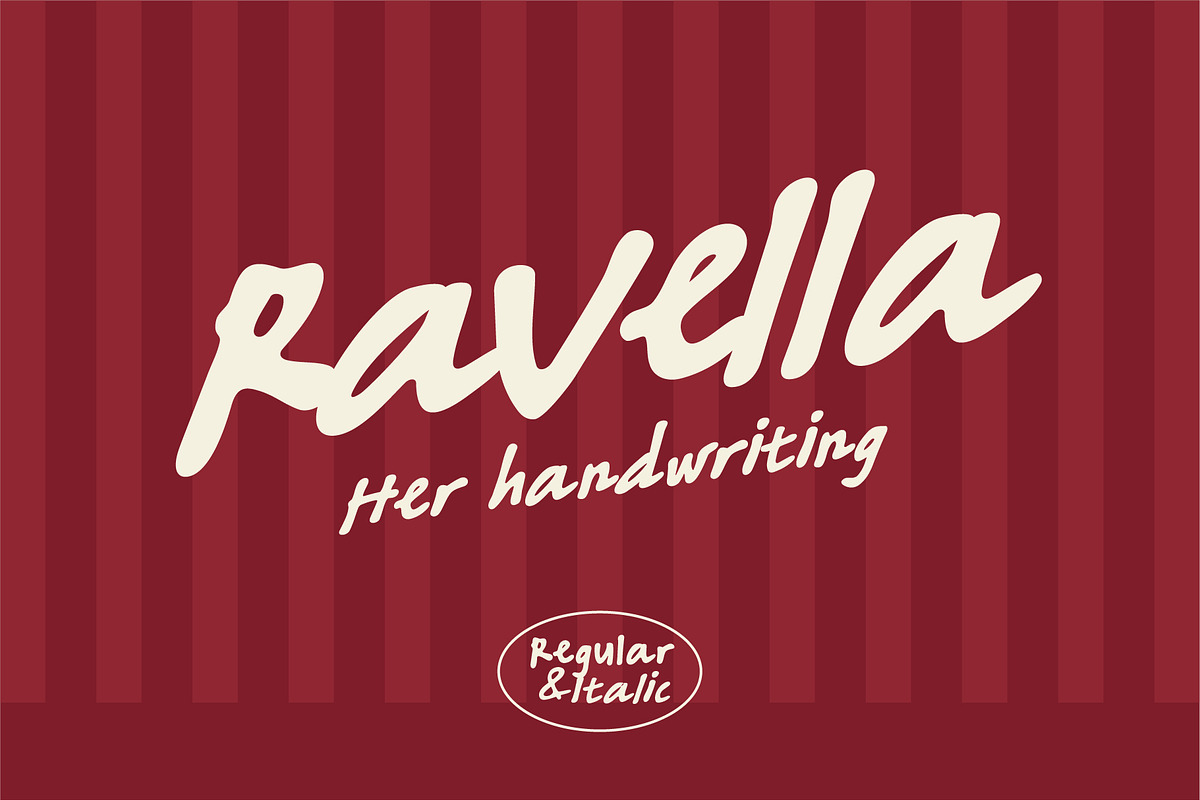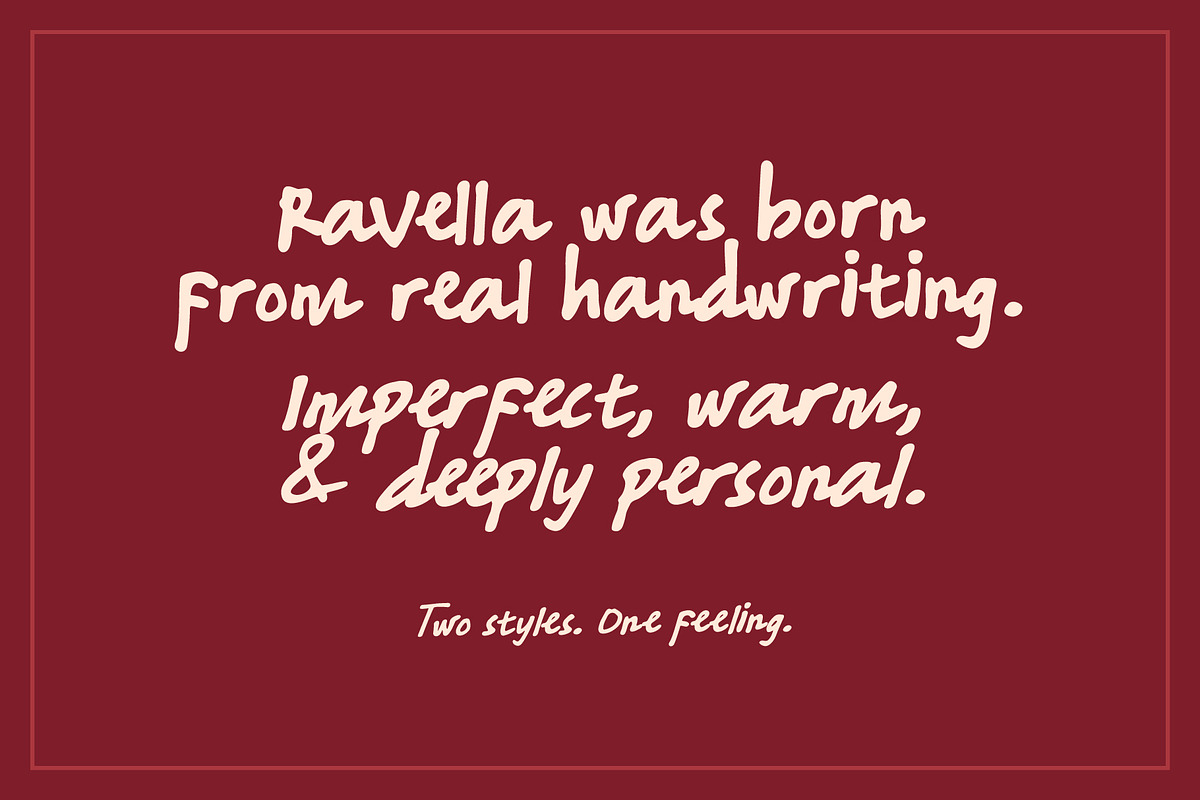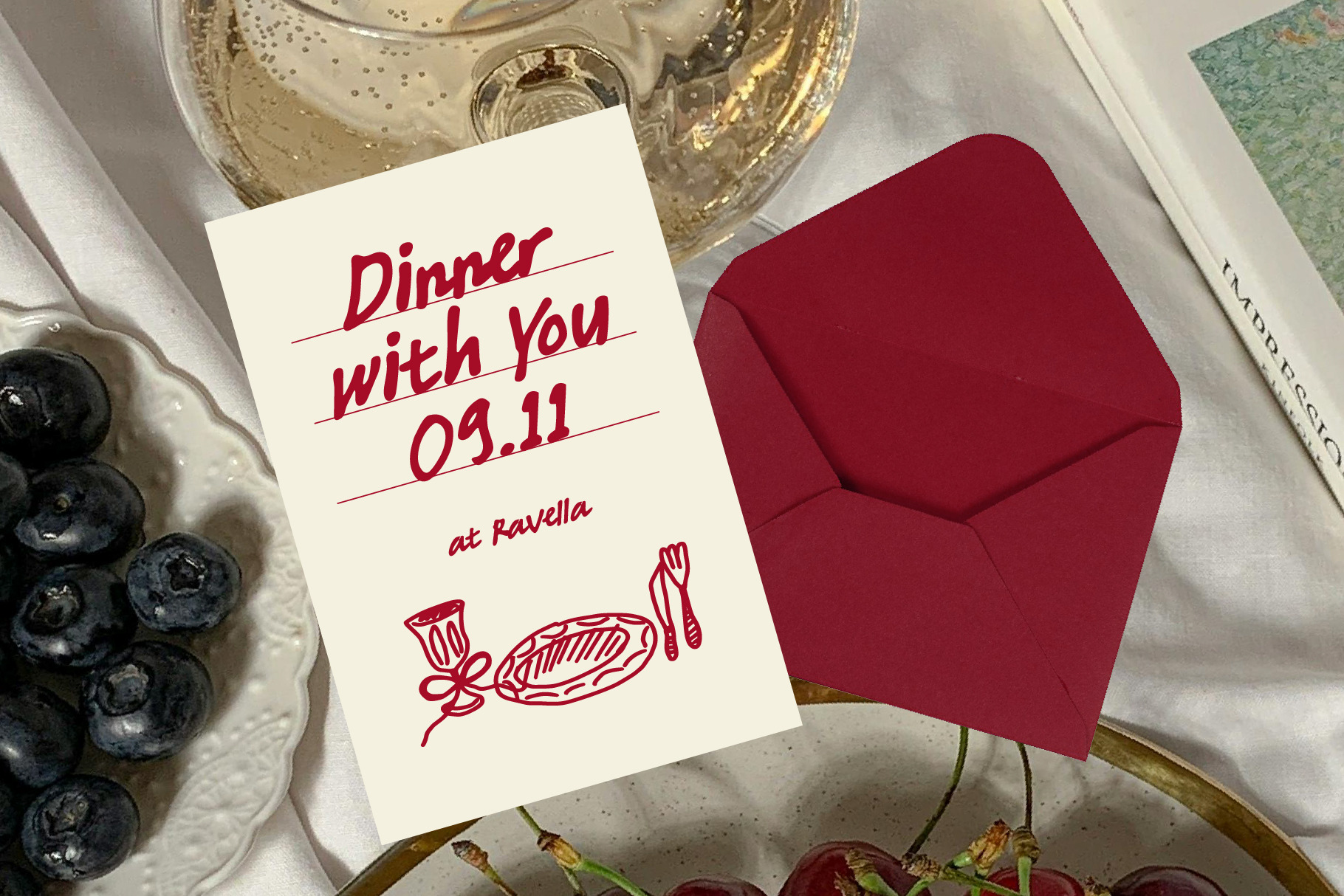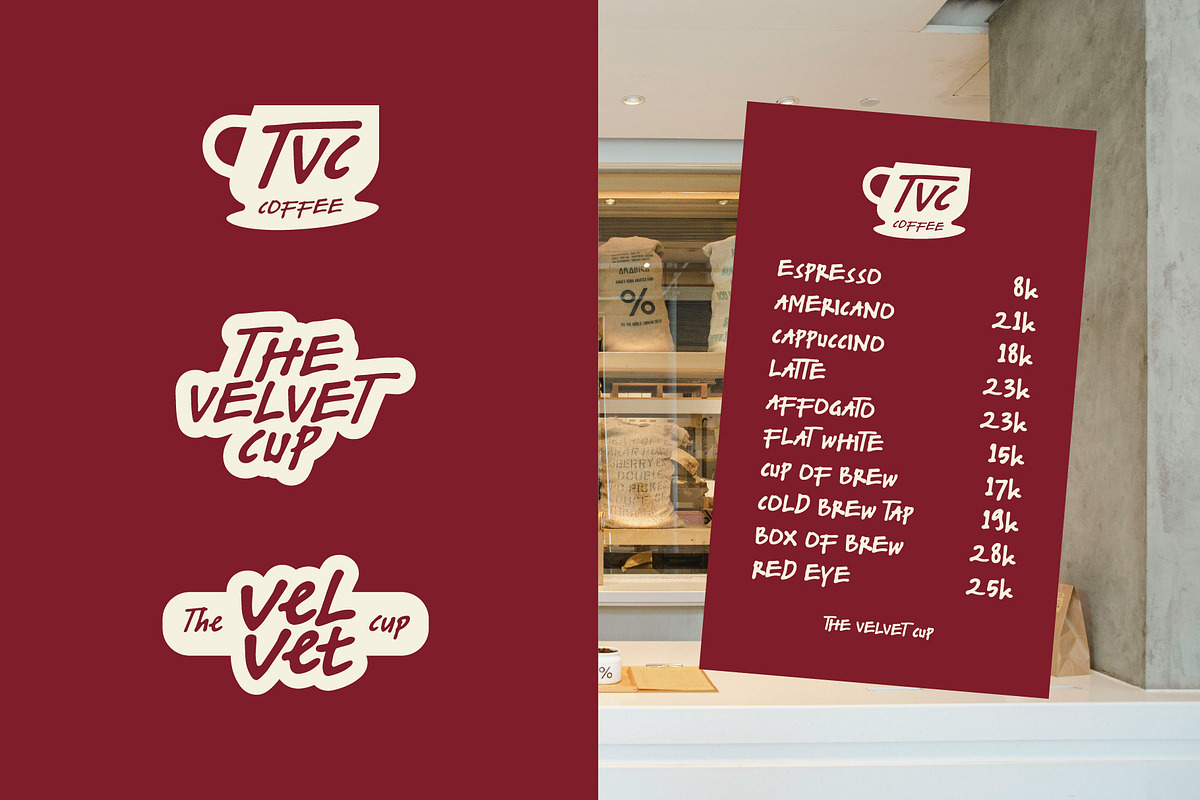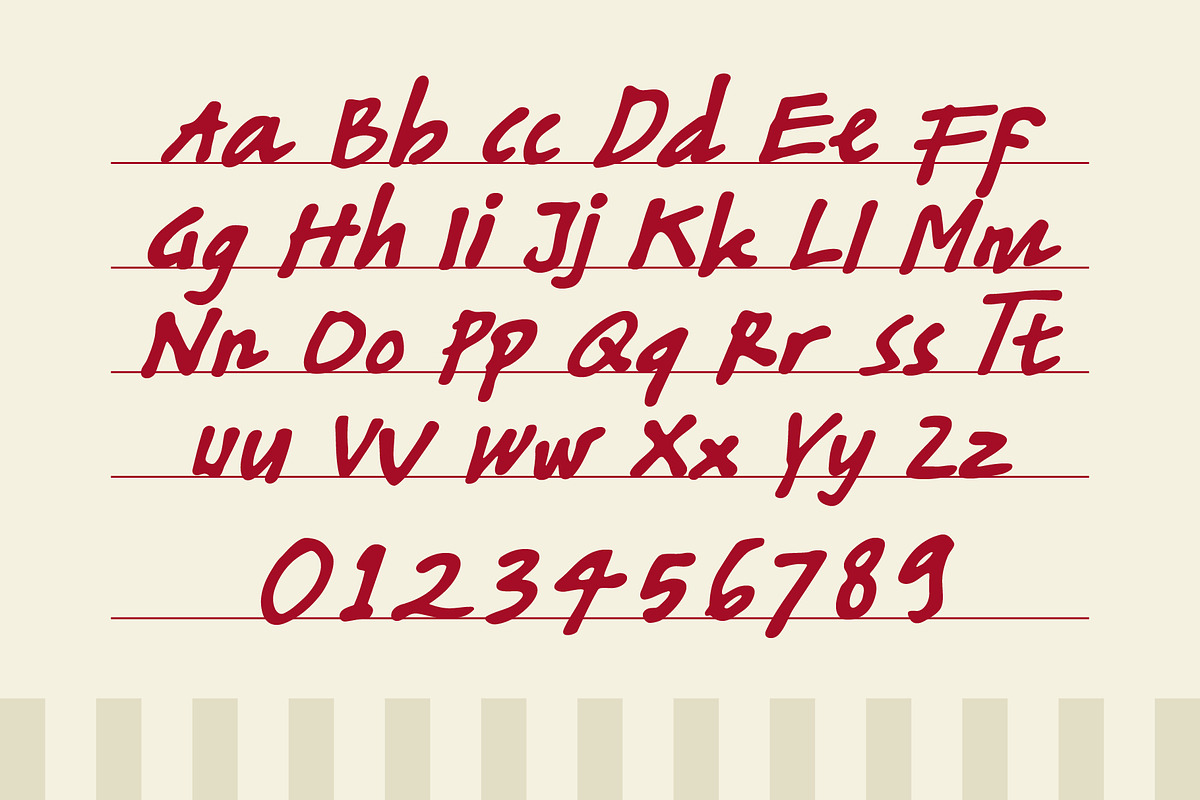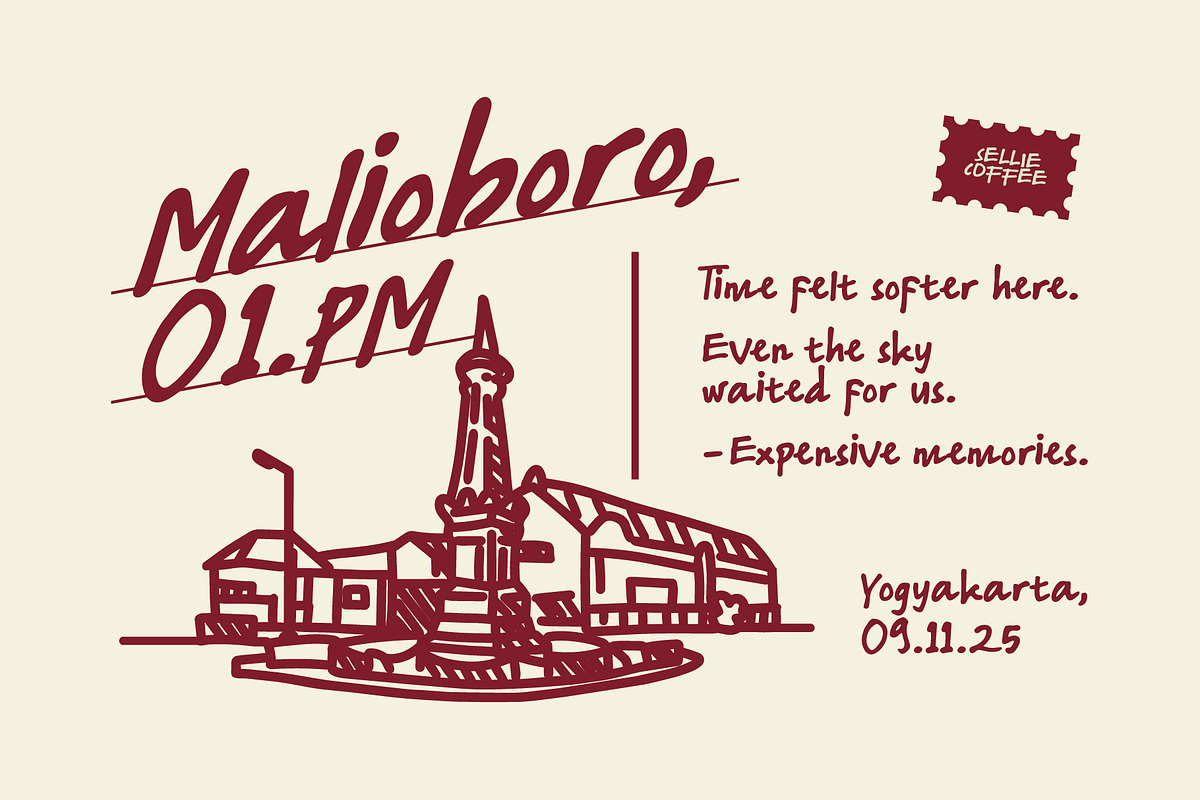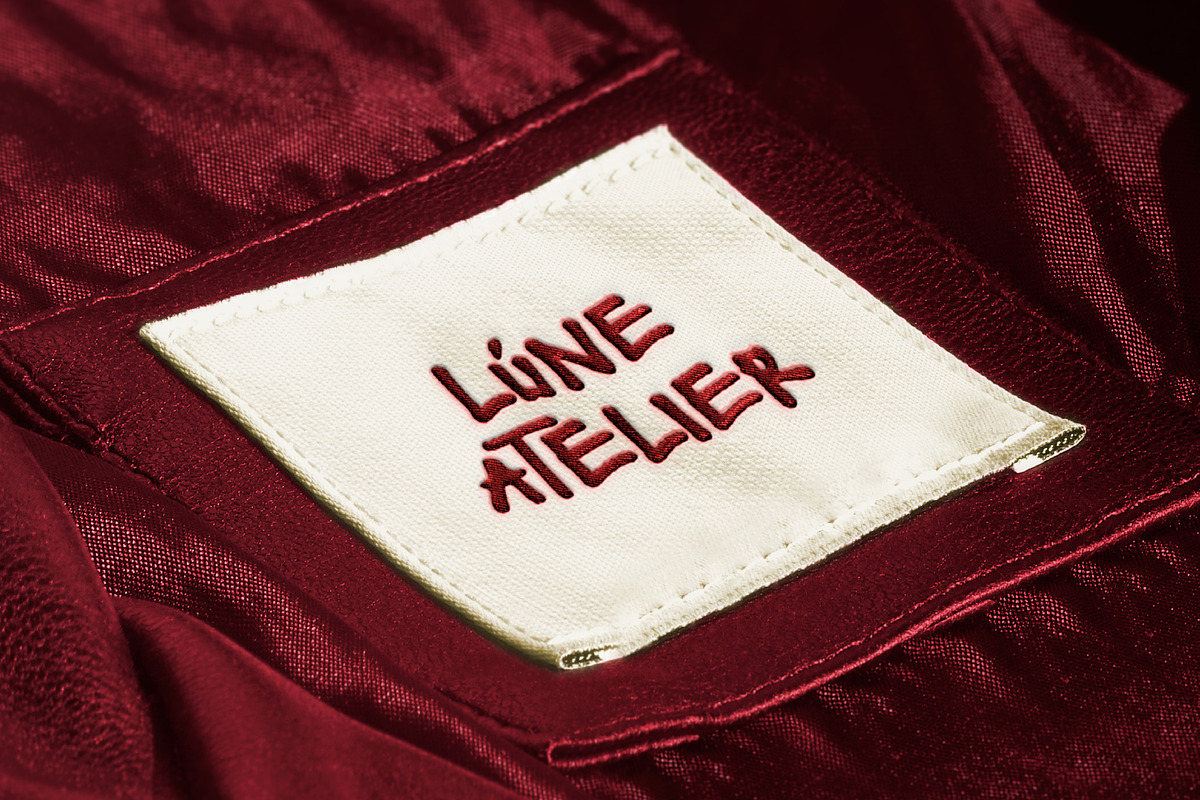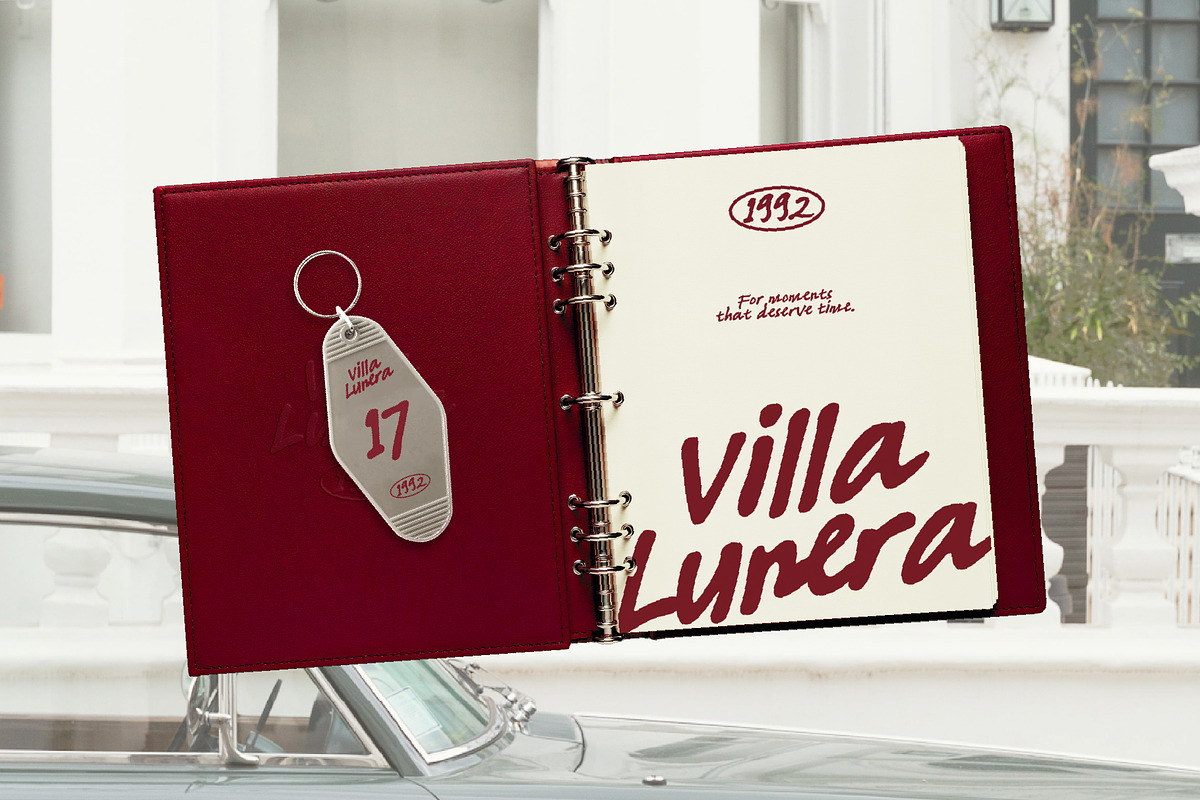
Ravella - Her Handwritten Font
A soft handwritten font made from her real handwriting
Ravella is a handwritten font created from my girlfriend’s actual writing — the kind you’d find in a notebook, on a sticky note, or at the bottom of a love letter.
It’s natural, imperfect, and full of little details that make it feel real. Not too neat, not too messy — just warm, personal, and easy to use.
It works great for: Branding Wedding designs Social media posts Quotes & cards Packaging Café menus Journals and planners
Basically, anything that needs to feel soft, romantic, or personal.
Ravella is a casual romantic handwritten font based on real handwriting. It’s perfect for designers who want their work to feel warm, personal, and natural — whether for branding, weddings, or everyday creative projects.